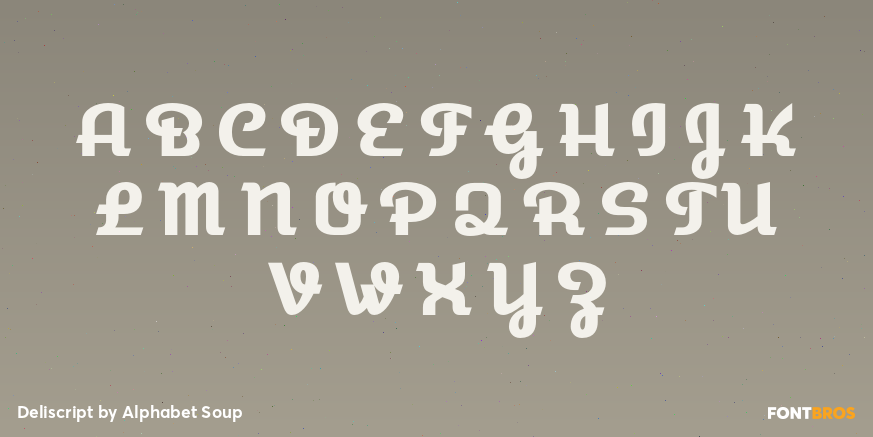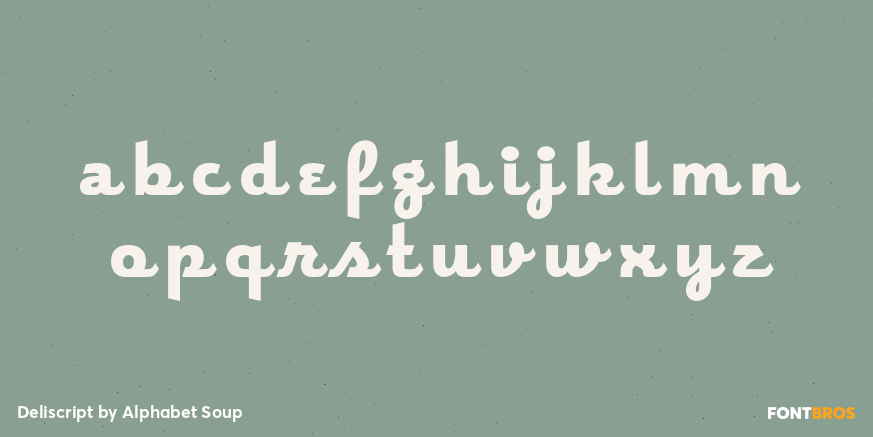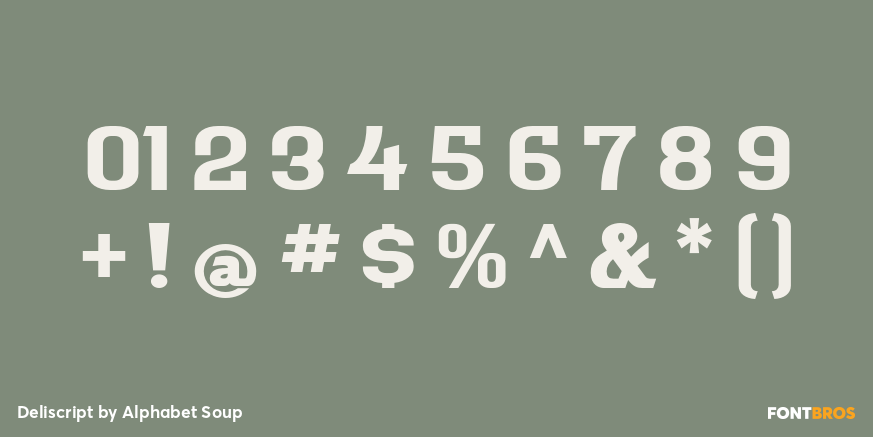
Deliscript
Font Family by Alphabet Soup
Buy NowAlthough Deliscript Upright was initially inspired by the neon sign in front of Canter's Delicatessen in Los Angeles, the design of this font soon took on a life of its own-and its own distinctive look. Like its sibling Metroscript, Deliscript has many features that expand its usability such as the the variable length tails which can be accessed in 6 different styles, and the unique crossbars which can be extended outward in either direction from the "t" character. Throw in the special "WordLogos", tons of ligatures and foreign accented characters, and you have a recipe for typesetting that approaches the look of hand-lettering.